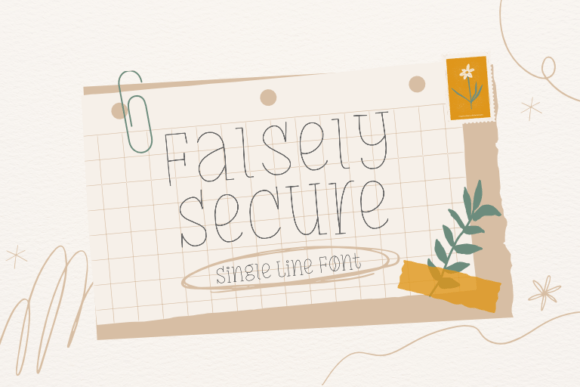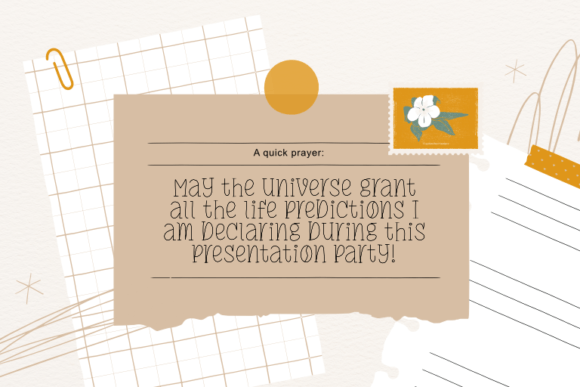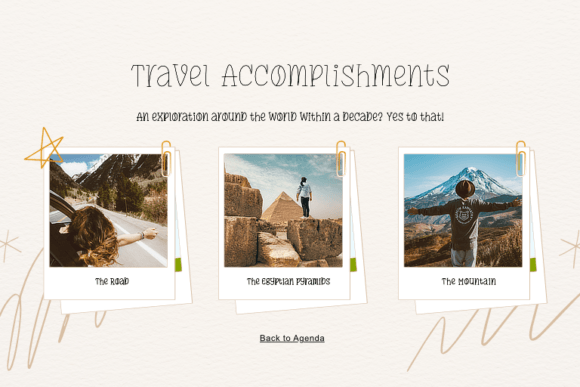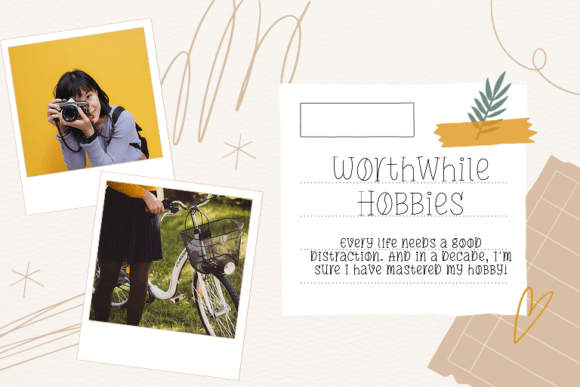
Falsely Secure Font: A Cute Single-Line Font for Cricut & DIY Projects
About the Falsely Secure Font
Welcome to the world of Falsely Secure Font, a typeface that will inspire your next great project. Falsely Secure is a sweet and friendly single-line font. Its natural and unique style makes it incredibly fitting for a large pool of designs. The only limit is your imagination!
Falsely Secure’s friendly, approachable nature makes it ideal for headlines, short text blocks on websites, and logos. It works particularly well in branding for children’s products, craft businesses, or anything emphasizing a warm, inviting aesthetic. Avoid using it for body text or lengthy paragraphs; its unique character may become visually tiring over extended use.
The font’s playful yet legible qualities are enhanced when paired with a simple sans-serif like Open Sans for body copy, creating a balanced contrast. For a more sophisticated look, consider pairing it with a delicate serif font such as Lora for supporting text or a clean geometric sans-serif like Montserrat to achieve a modern feel.
Overall, Falsely Secure projects a feeling of gentle confidence and approachability. Its unique charm is best showcased in projects where personality and visual appeal are paramount.
Falsely Secure Font Usage Examples
Falsely Secure Font Example